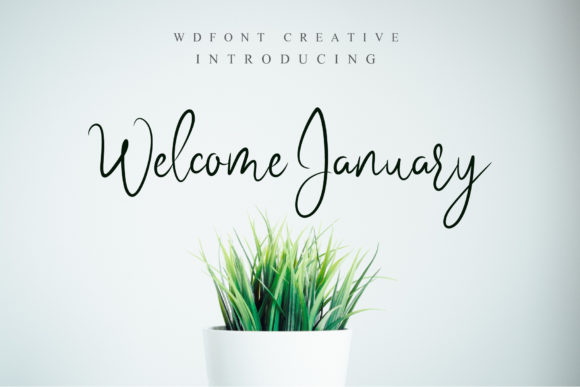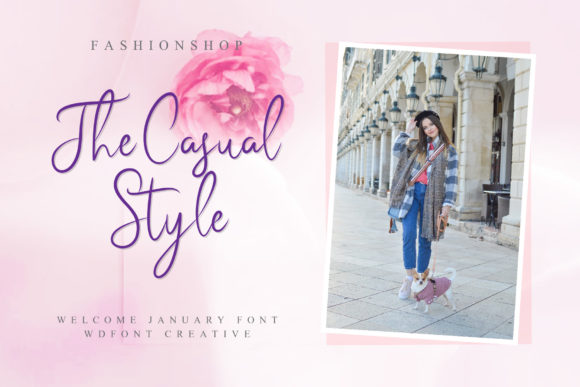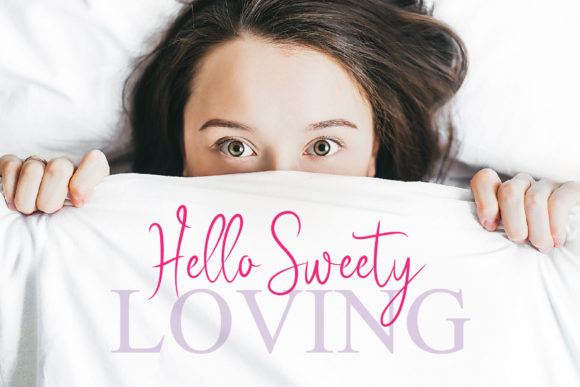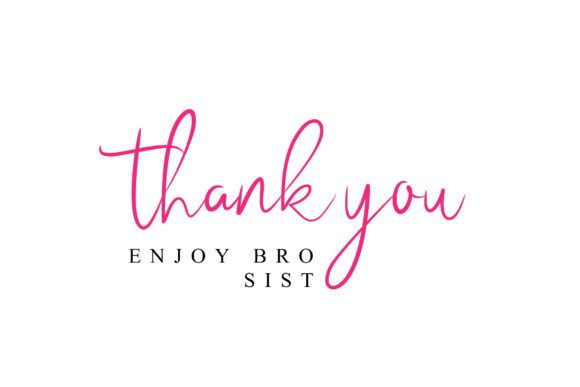
Welcome January Font
About Welcome January Font
Cool and sophisticated, Welcome January is a stand out font that will add a touch of authenticity to any creative project.